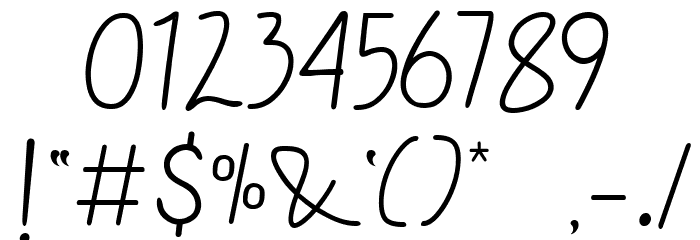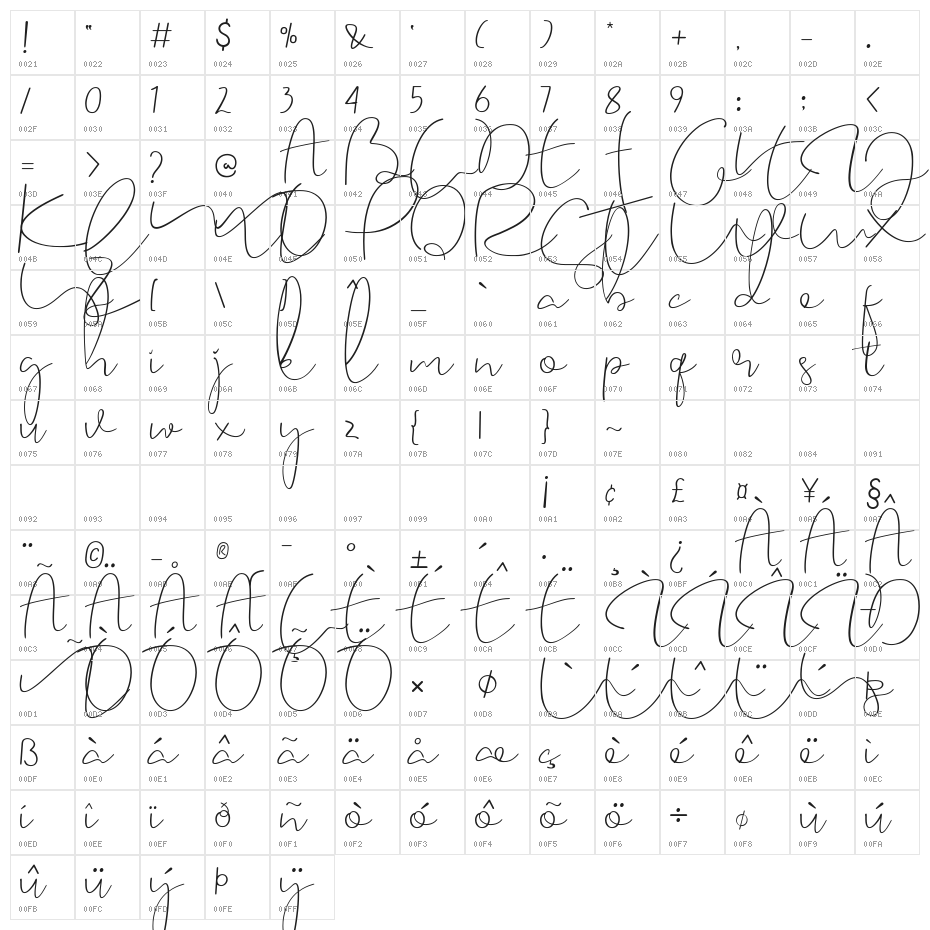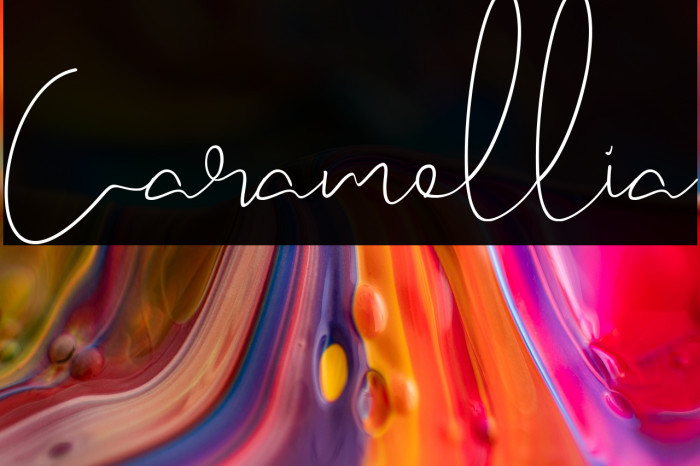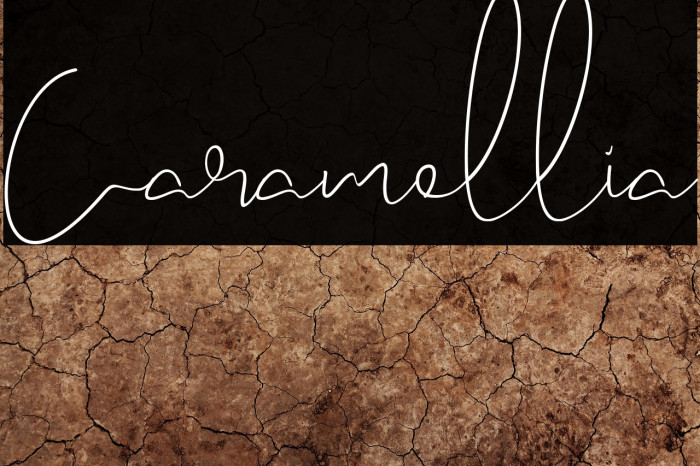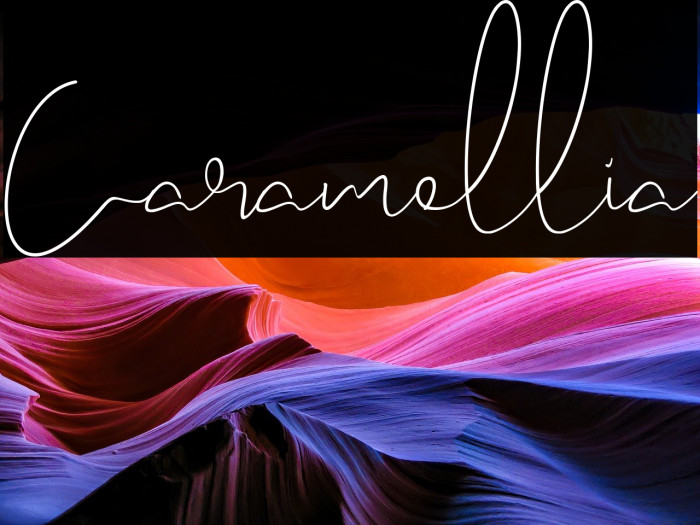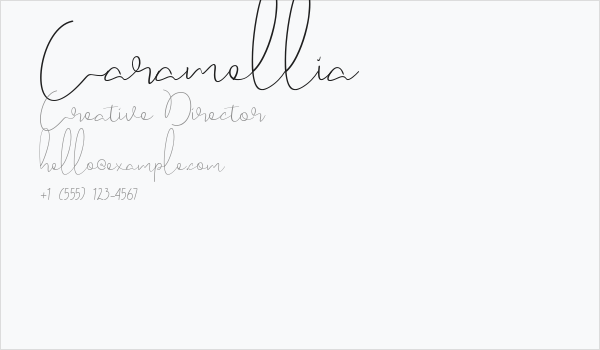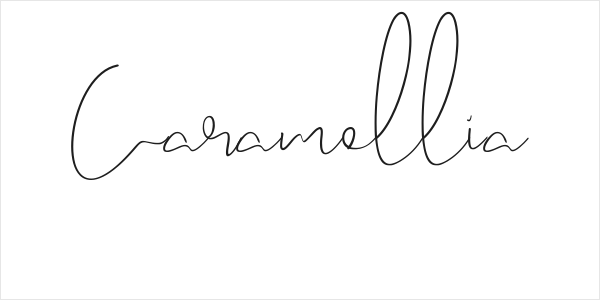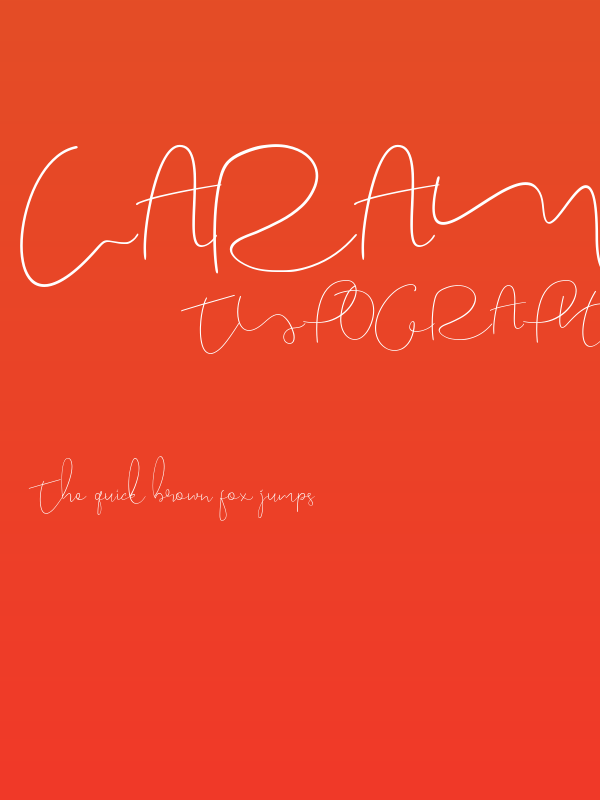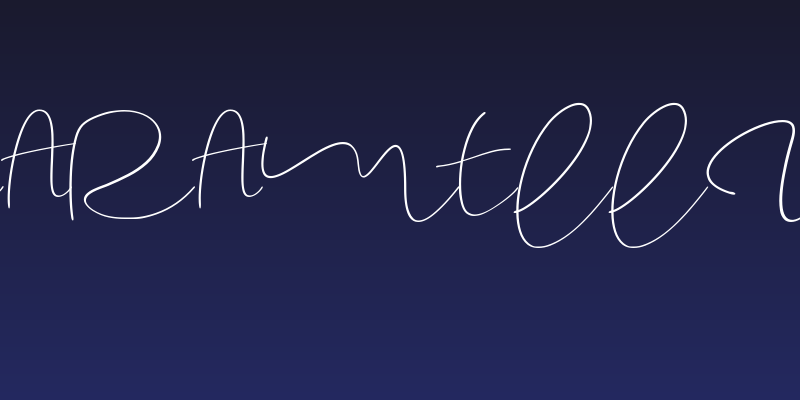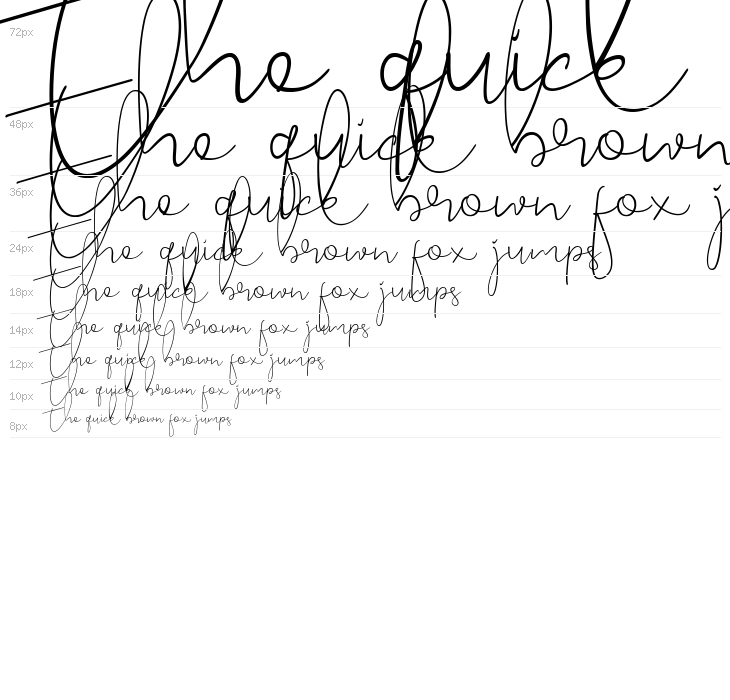
Caramellia Font
Caramellia Description
This font exudes a playful and whimsical charm, characterized by its fluid and continuous strokes that mimic natural handwriting. The uppercase letters are elegantly looped and connected, creating a sense of movement and flow. The lowercase letters maintain a consistent style, with smooth curves and a slightly informal touch. The numerals are clear and distinct, maintaining the overall handwritten aesthetic. Special characters are thoughtfully integrated, enhancing the font's versatility. This font is perfect for projects that require a personal and approachable feel, such as invitations, greeting cards, or branding materials.
| Overall Style | Whimsical, Playful |
| Use Case | Headlines, Logos, Personal projects |
| Proposed Projects | Ideal for invitations, greeting cards, personal branding, and creative projects. |